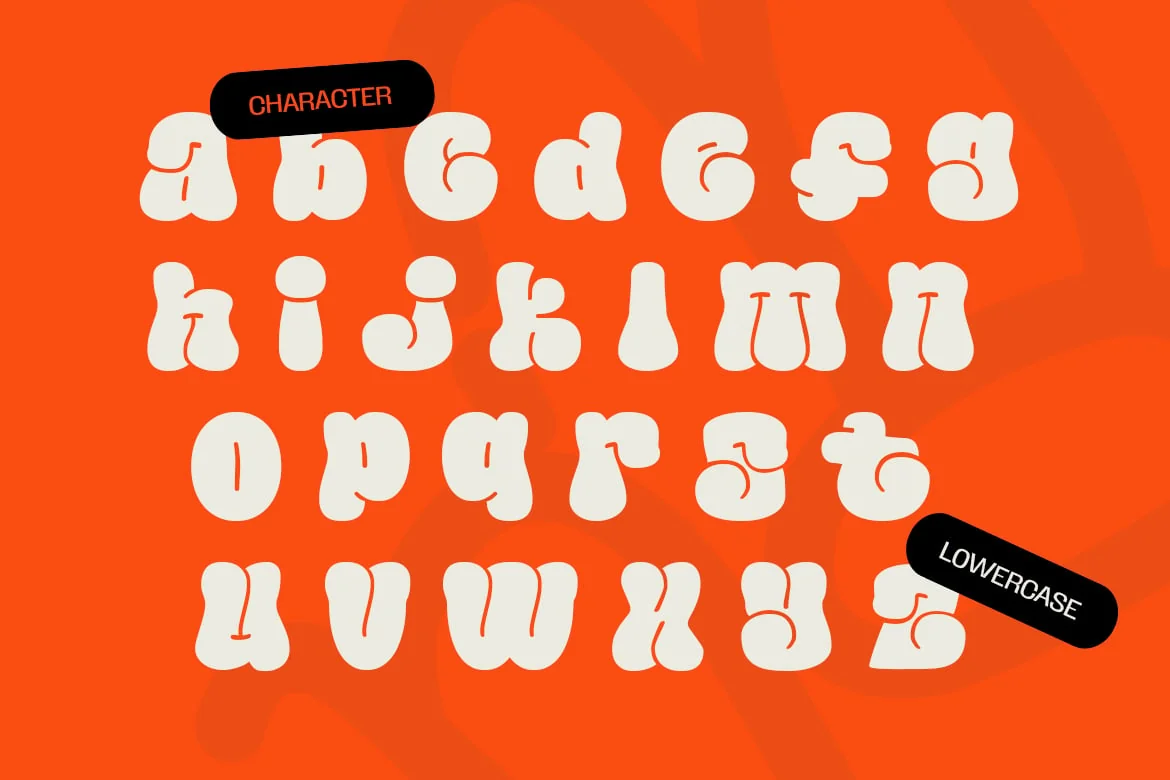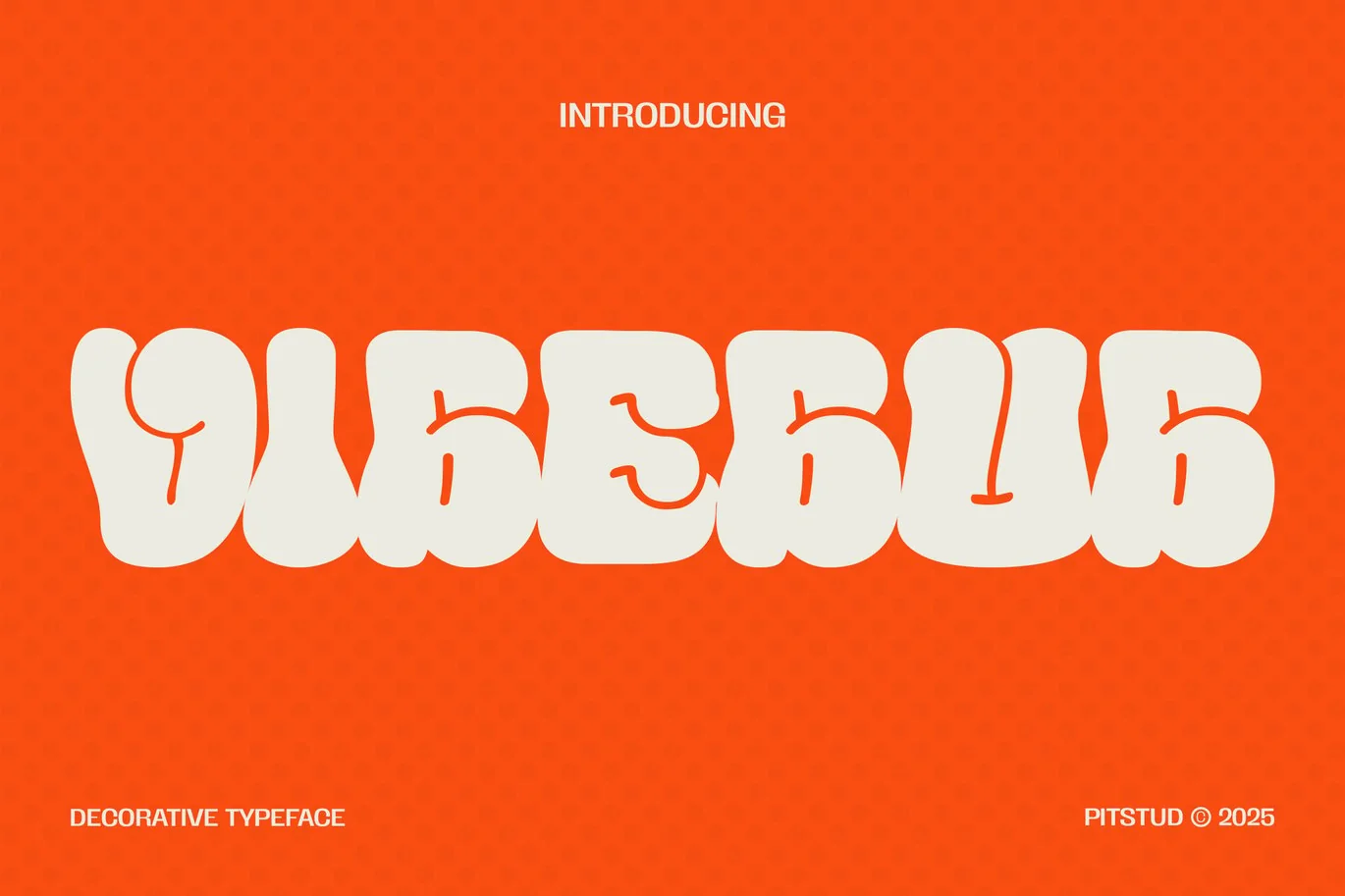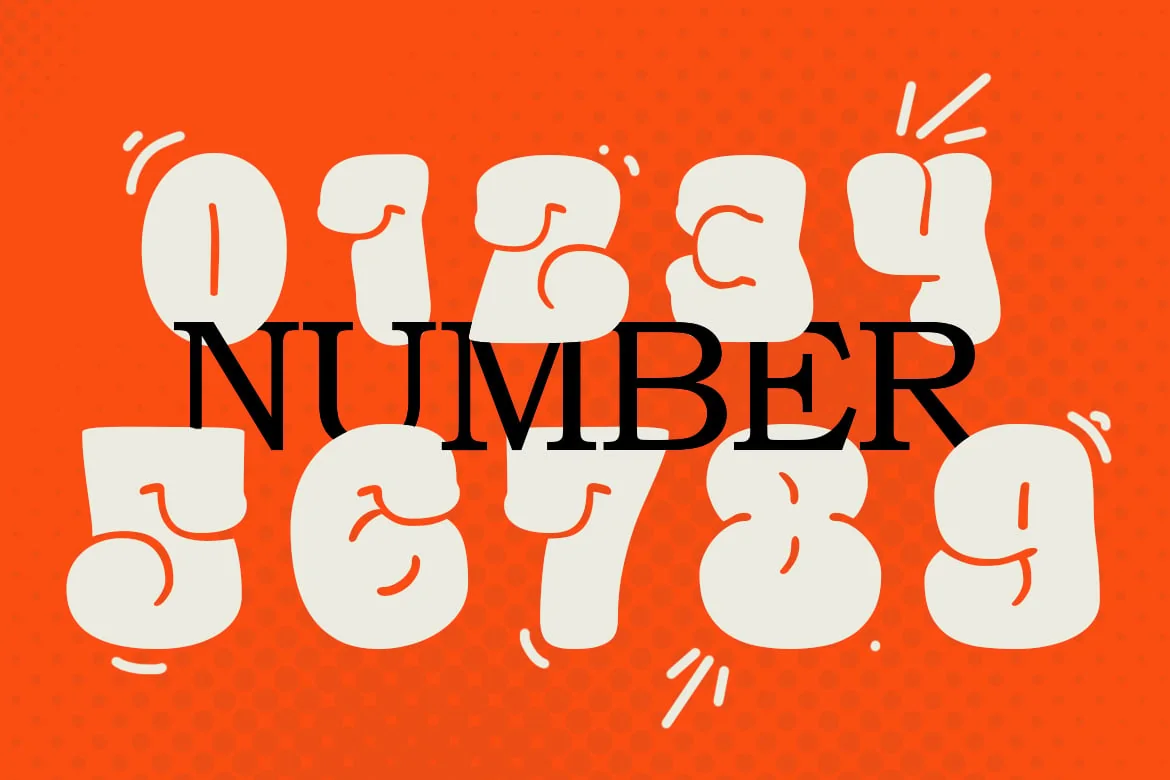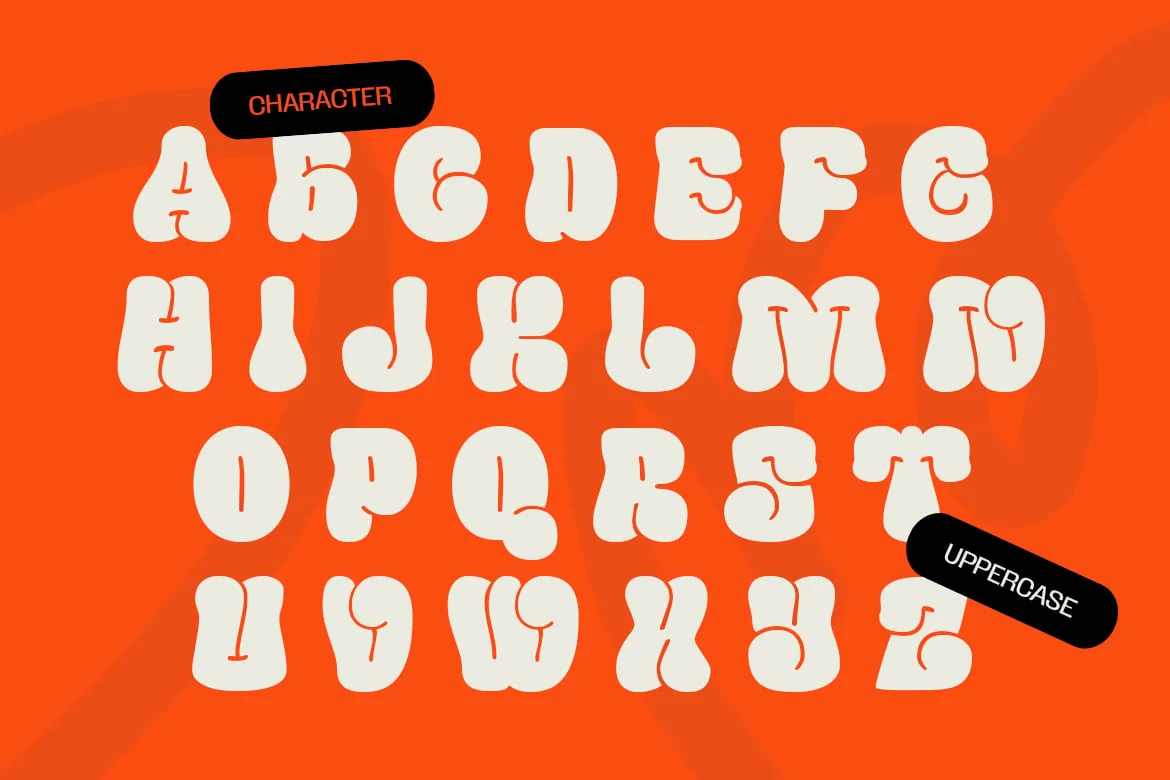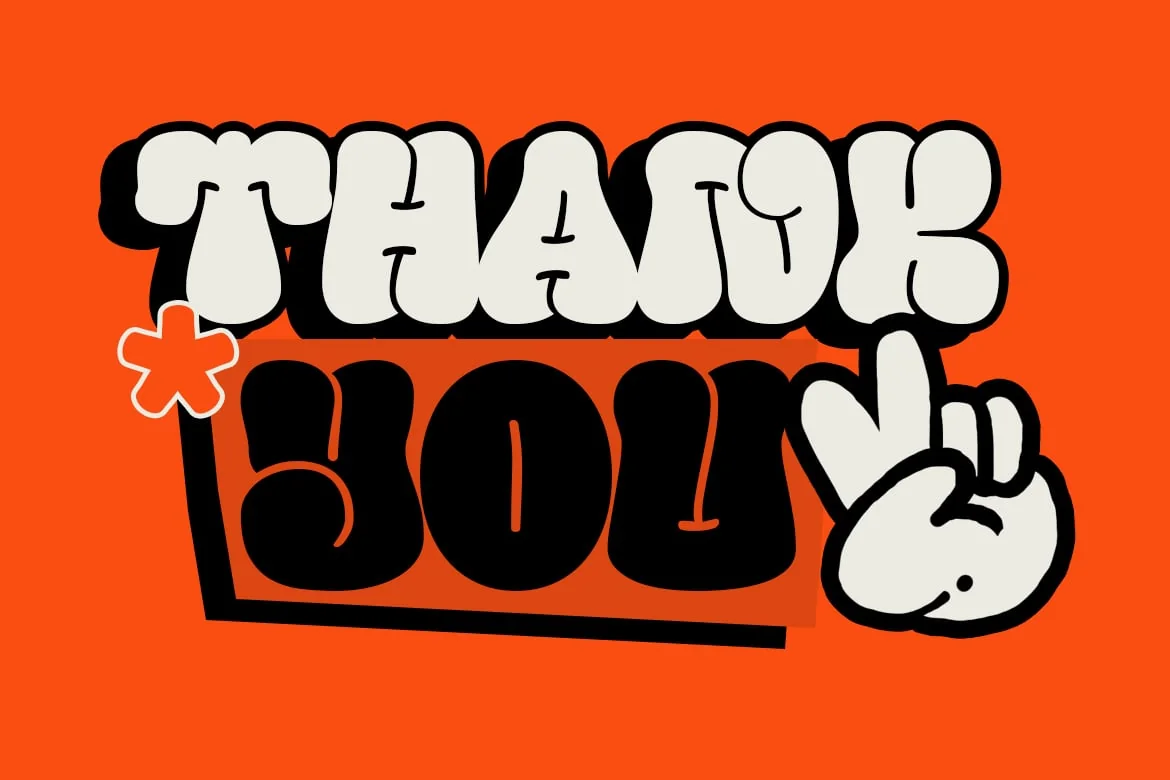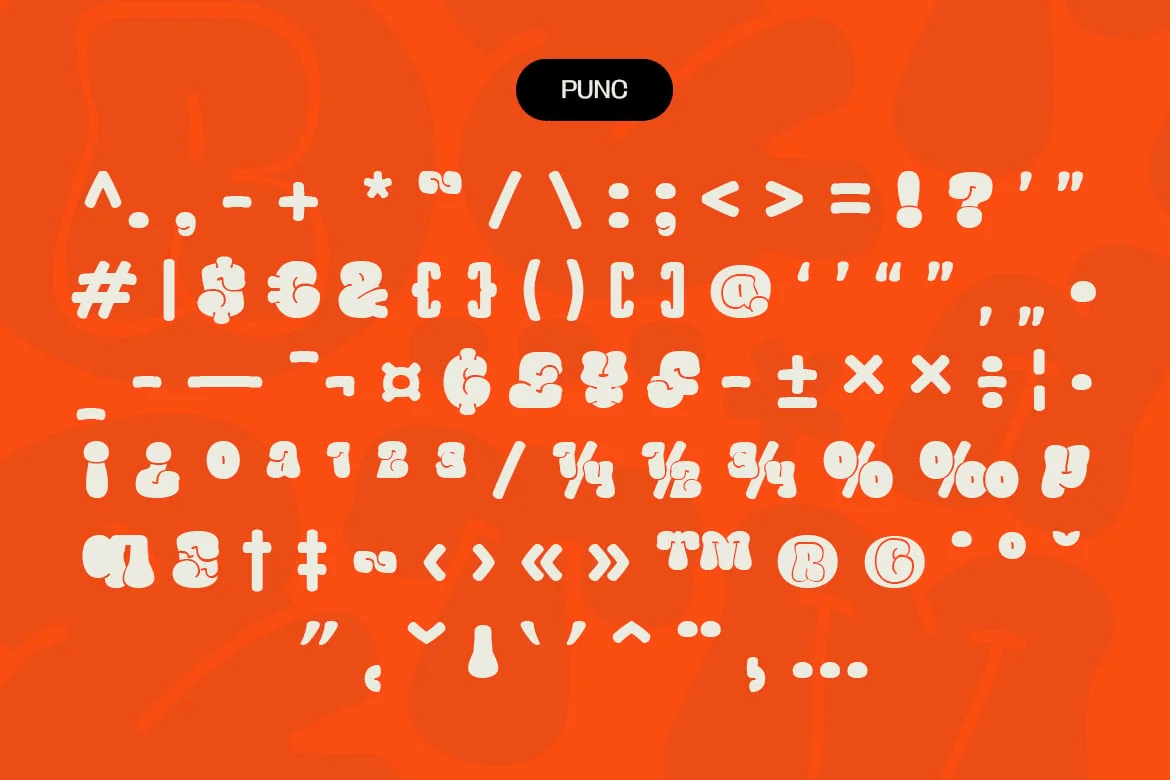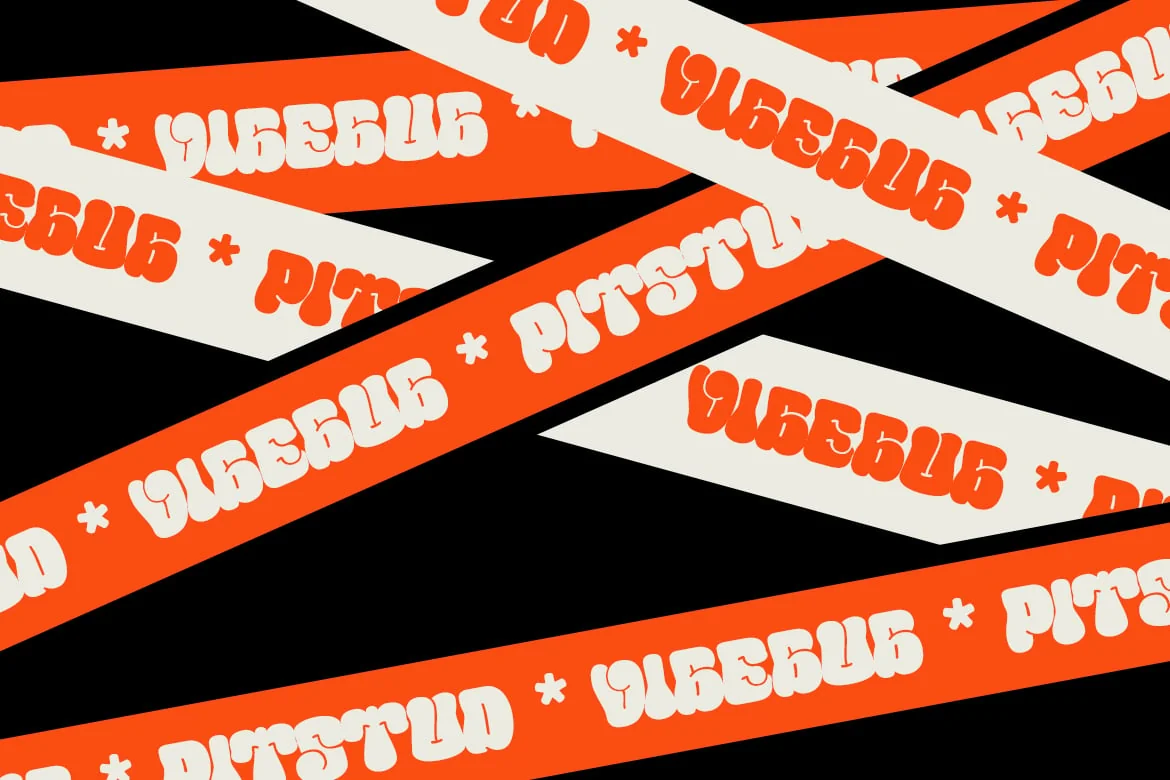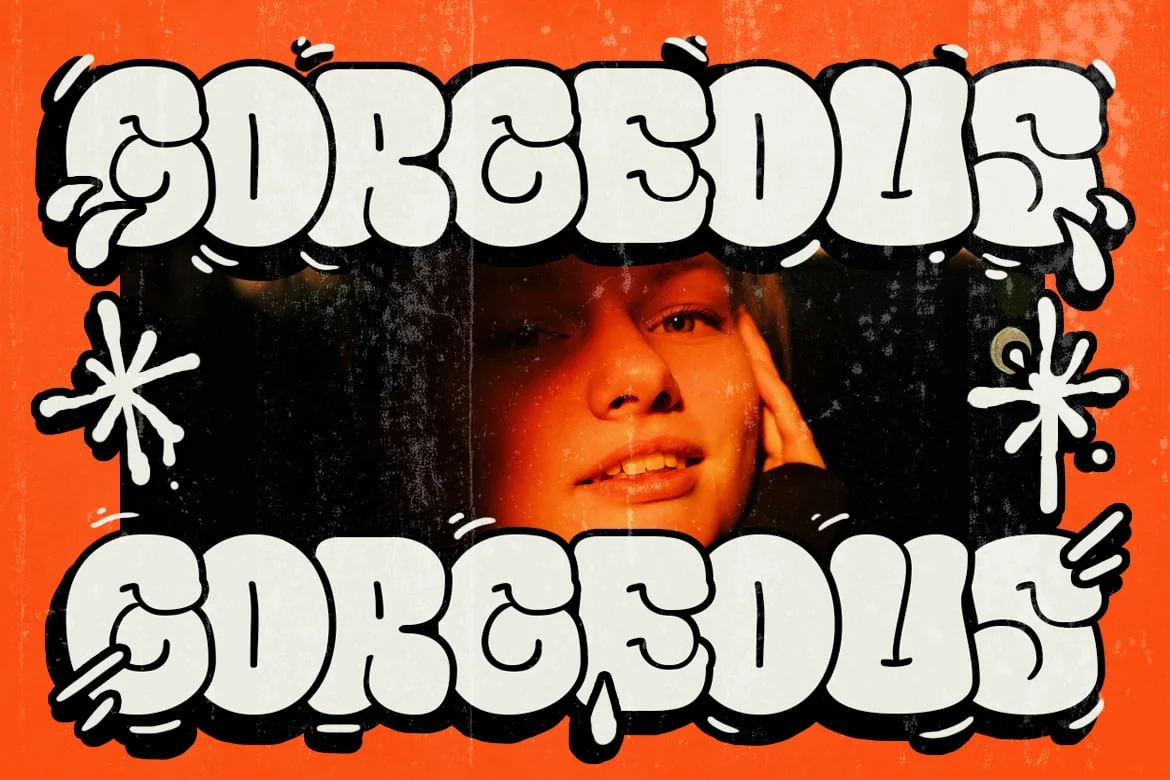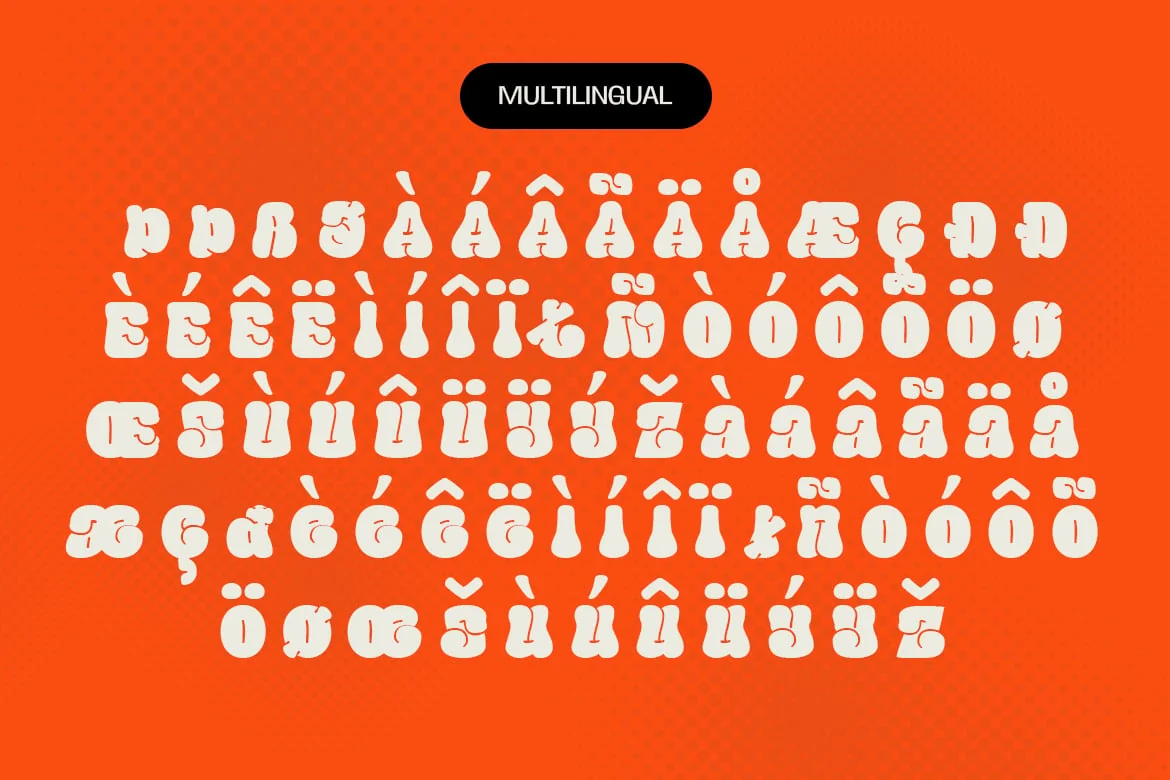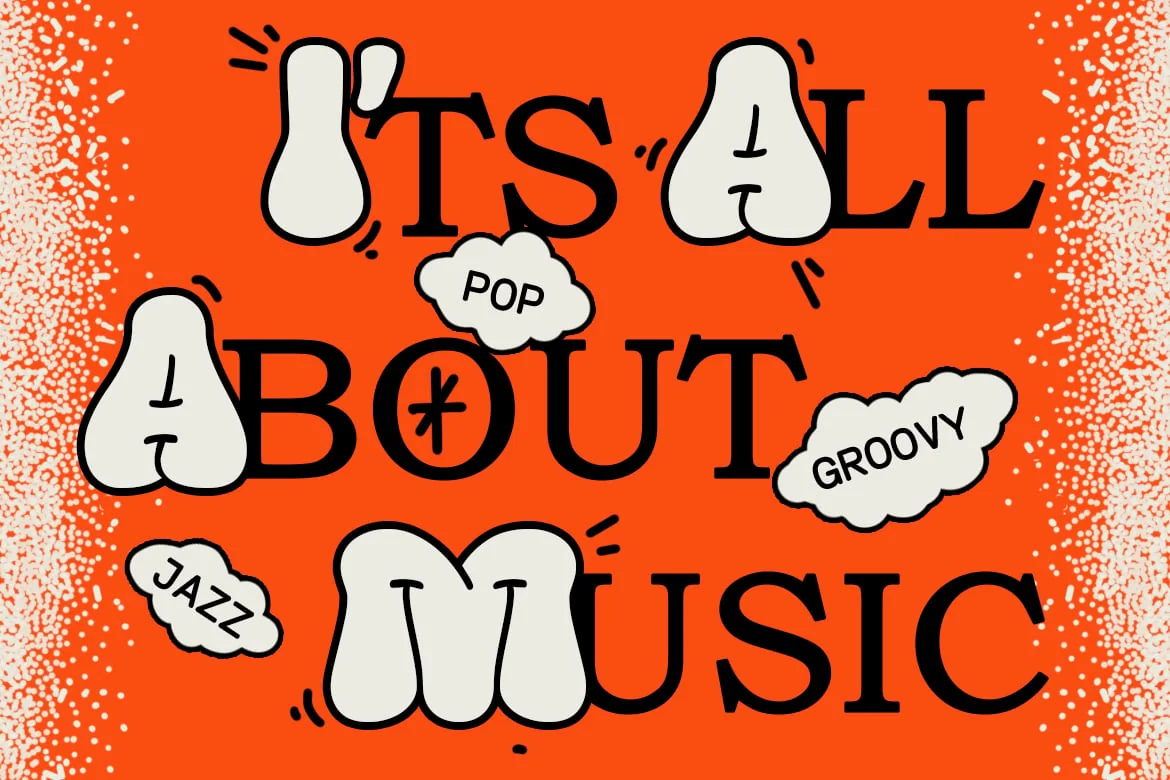
VibeBub – Bubble Graffiti Font
VibeBub – Bubble Urban Street Graffiti Font
is a premium Bubble Urban Street Graffiti font designed to bring a burst of playful urban energy and bold street attitude to your branding and design projects. Crafted with modern chunky outlines and dynamic bubble curves, this font offers a sleek, stylish, and professional touch for logos, marketing materials, packaging, and digital applications.
Whether you’re working on a urban streetwear project, graffiti mural, or creative logo design, VibeBub will give your design a vibrant edge. It’s ideal for use in bold logos, eye-catching posters, urban branding, and display designs.
Font Features:
- Clear and Versatile Design: Offers easy readability with a modern style that stands out in both digital and print mediums.
- Complete Character Set: Uppercase and lowercase characters, numbers, punctuation, and symbols.
- OpenType Features: Access alternates, ligatures, and unique stylistic sets to customize your design.
- Multilingual Support: Includes support for multiple languages, including English, Spanish, French, German, and Portuguese.
VibeBub combines bubbly curves, chunky lettering, and graffiti-inspired splashes to create a striking visual impact while maintaining clarity. Whether you are designing for urban street art, creative branding, or fun digital projects, this font adapts to your needs and enhances the visual appeal of your design.
Perfect For:
- Urban Graffiti: Perfect for creating bold, artistic typographic designs that capture street energy.
- Playful Branding: Ideal for vibrant logos and dynamic display pieces.
- Display Designs: Great for posters, banners, and eye-catching headlines.
- Kids & Fun Projects: Adds a whimsical and energetic touch to designs aimed at younger audiences.
- Creative Ventures: Excellent for any project that demands a modern, fun, and distinctive look.